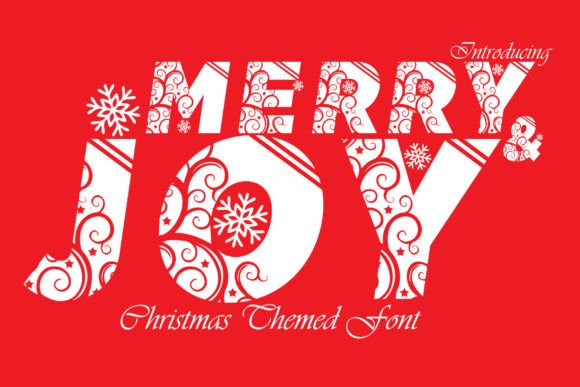
Introducing the Merry and Joy Font: A Christmas Celebration in Every Letter!
Step into a realm of festive enchantment with the Merry and Joy Font, a decorative treasure that transforms your designs into a heartwarming Christmas wonderland. Let your imagination dance to the rhythm of its thick, whimsical letters, each one a testament to the magic of the season.
With Merry and Joy, ordinary words become extraordinary greetings, capturing the essence of Christmas cheer. Imagine the captivating charm of gift tags bearing names in this delightful font, or the heartfelt warmth of Christmas cards adorned with its merry dance. Embrace the spirit of giving with this font by designing gift certificates that exude a touch of festive flair.
Unleash your creativity and let the Merry and Joy Font weave its charm into every corner of your Christmas décor. Create enchanting posters that evoke the nostalgia of childhood wonder, or design eye-catching flyers that spread the merriments of the holiday season. Turn your home into a festive haven with Christmas-themed wall art, each letter a twinkling ornament in a symphony of joy.
The possibilities are endless with the Merry and Joy Font. Its thick, cheerful lines are like a warm embrace, inviting your audience into the spirit of Christmas. Make this font your go-to choice for personalizing Christmas bags, turning them into one-of-a-kind keepsakes. Let your creativity shine with unique Christmas-themed invitations, bringing a touch of whimsy to every gathering.
Seize the magic of Merry and Joy Font, and let it transform your designs into a symphony of Christmas cheer. Immerse yourself in the enchanting world of this decorative font and experience the joy of creating designs that capture the essence of the festive season. Embrace the magic of Merry and Joy and let your creativity soar. Merry Christmas!